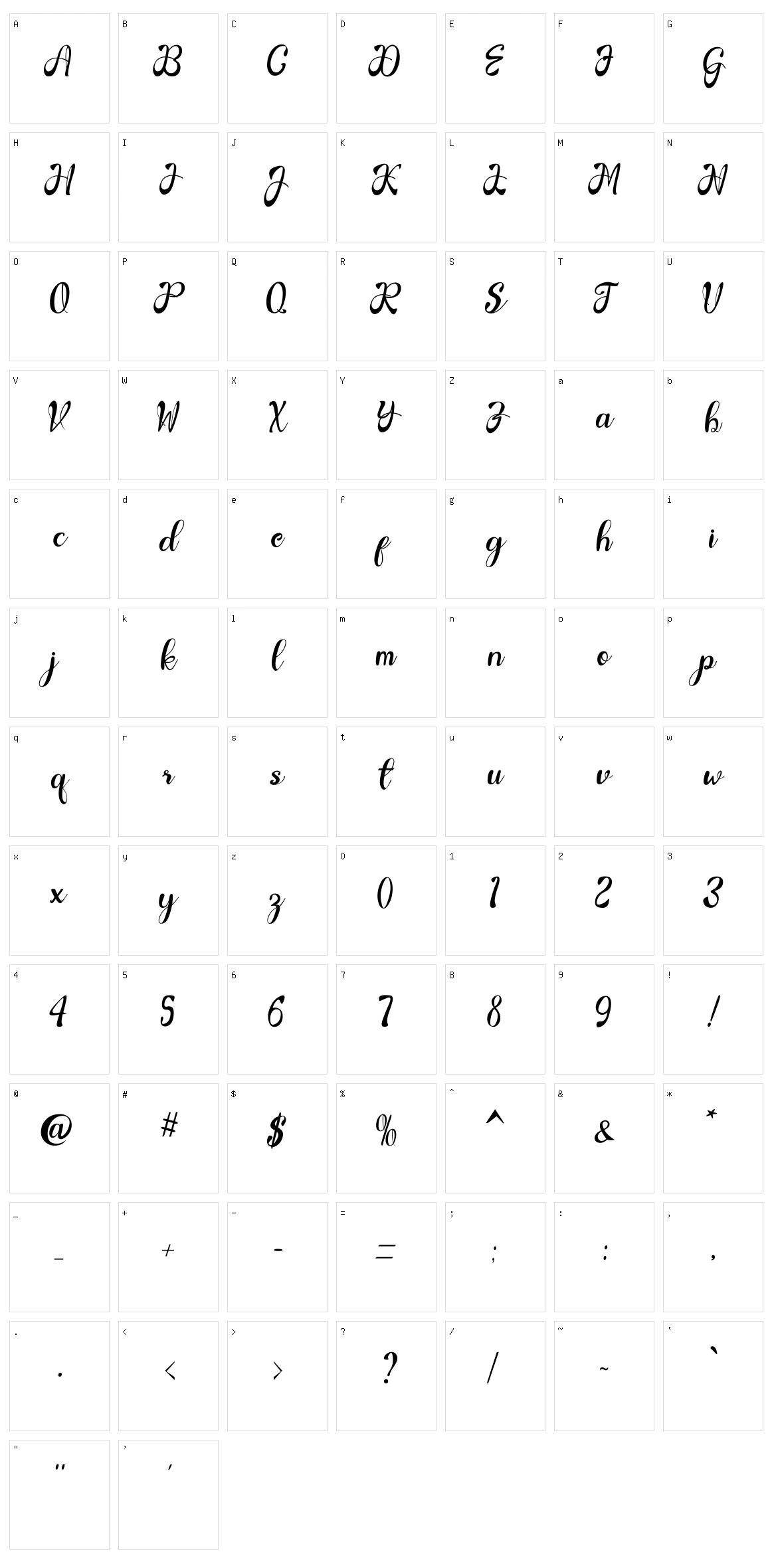
The free font Gardenia is carefully designed by Ameerazan Studio, showcasing a thoughtful balance of creativity and usability and falls under the Script font style. When you download the ZIP file, it contains only 16.79 KB of font files, making it lightweight and quick to download. Please review the license details below to understand permitted usage and distribution rights. If license information is not available, we recommend using this font for personal projects only or contacting the author directly for commercial usage permissions.